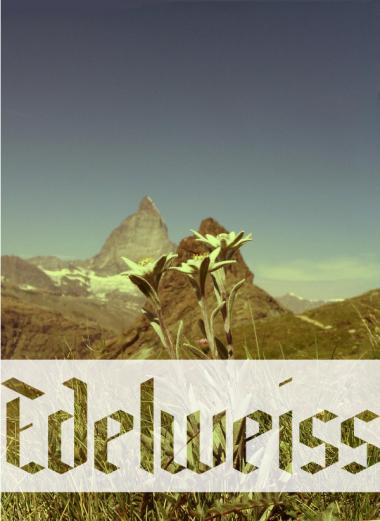
A good first FontStruction ... and nice samples.
Nice work, and great samples! Do you think this might work for s? You could do something similar with S.
Great blackletter!
Just stunning! I think you did everything right.
Your x is so beautiful...